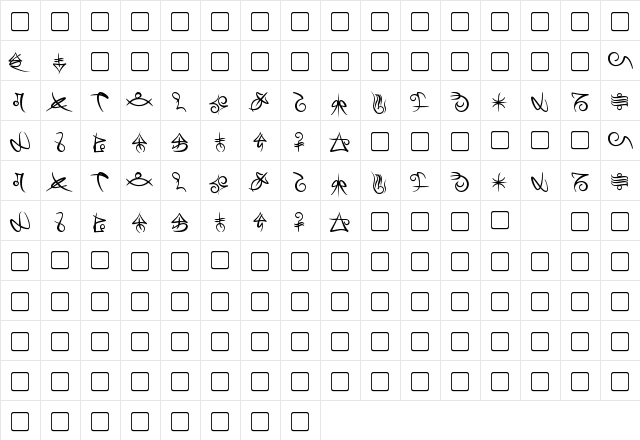
Mage Script Bold
Design Context for Mage Script Typeface
Mage Script brings a calligraphic fluidity to the page — its connecting strokes and expressive curves give it an unmistakably human quality. Its bold stroke weight gives it real presence on the page.
Font Pairing: Combine Mage Script with a simple geometric sans for maximum contrast — the tension between flowing curves and clean structure is a classic typographic pairing.
Pro Tip: Use Mage Script for short runs of text — names, titles, or taglines. Extended body copy in script faces tires the eye quickly.